Beat the Heat: 25 Coolest Summer Fonts for Your Next Project
For most people, summer means – sunshine, vacations, and a wardrobe makeover. But for marketers – summer means, the time to revamp their designs to capture the vibrant energy of the season. The time to give their marketing materials their much-deserved seasonal makeover. And fonts happen to be the most crucial elements in design. Hence, today, we’re discussing summer fonts.
After all, for the best summer-ready designs, you need fonts that capture the fun and festivity associated with summer! Wondering where to start? You’re in the right place. We have curated a list of the coolest summer fonts guaranteed to boost those beachy vibes in your next design project.
Whether you’re designing for a one-off event or spicing up your summer social media campaigns, we’ve got something for everyone. So, let’s dive in!
25 Summer Fonts to Elevate Your Designs
To give you plenty of options to explore, we have rounded up some free fonts from the Google Fonts library as well as some paid ones. But what if you find a font you love and want to explore similar options? You can use tools like WhatFontIs to identify alternatives.
Or maybe you’ve already chosen your perfect summer font but are struggling to find the right pairing font? You can use tools like Designs.ai to find suitable font combinations.
With this in mind, let’s get started with our list of summer fonts.
Script Fonts – Paid
1. Sea Breeze
The font appears and feels exactly like its name – like a warm sea breeze. Can you ask for anything better for your summer aesthetics?
With its coastal charm, this one makes a breezy choice for summer sale announcements. Besides, this is also a great web font for your web banners, social media designs, and digital ads for summer campaigns.
- Use Sea Breeze in big bold text headings because its slanted sleek strokes are not the easiest to read in small sizes.
- Given the clean lines, this font looks good on photo backgrounds or even summer patterns.
2. California
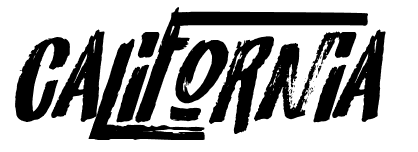
Statement summer tees or a fun beach party, California is just the font you need to uplift the energy in your design.
Its retro distressed style makes it one of the most unique summer fonts to explore. Also, its raw strokes make it a good choice for those times when you have to share a summer quote or a summer-themed message in your print designs or even when you have to experiment with bright summer colors.
- Since California is a bold script on its own, pair it with something subtle.
- Keeping the distressed texture in mind, choose contrasting colors for the font and background to ensure that portions of the characters do not fade away into the background.
3. Tropical Asian
With irregular strokes for that personalized touch and dry brush like texture, Tropical Asian can easily complement diverse summer aesthetics.
Another point to note is that this font looks fun and can therefore work perfectly in designs created for a young audience. Besides, it’s free for personal use!
- Got some vibrant tropical themes to work on? Then don’t forget to add Tropical Asian to your list.
- On its own, Tropical Asian has an exotic mood. Therefore, pair it with something simpler and not something with intricate patterns or busy details.
4. Forever Summer
Forever Summer is one of the most versatile choices in summer fonts. Because it is available as a font duo with one traditional script font and one brush-stroked sans-serif styled font.
Both these variations carry a playful style which makes them look fantastic in summer designs. And the variety also means that you can pair them effortlessly in your design without having to hunt for other fonts to go with this.
- Use color and size variations to accentuate the subtle differences in the personalities of the font styles in this combo.
- Keep the overall aesthetic casual to align with the mood of this font.
5. Tangerine
Tangerine is a brilliant chancery hand style font with breezy fluid strokes available in both bold and regular styles. The graceful lines and the sense of lightness this font carries make it a great choice for summer themes.
Moreover, the font also carries a happy vibe that resonates with the joy of summer. The elegant style of Tangerine works well in designs that call for a slightly formal tone. Like the summer menu of a high-end restaurant or even the hero text on flyers for summer events.
- Given the bold strokes of the uppercase letters in this font, avoid using it in contexts that call for all caps.
- Use Tangerine in sufficiently large font sizes to maintain readability, as its intricate details can make the text difficult to read in small sizes.
6. Kaushan Script
If you are looking for semi-casual summer fonts that are neither too playful nor too traditional, then Kaushan Script is a wonderful choice.